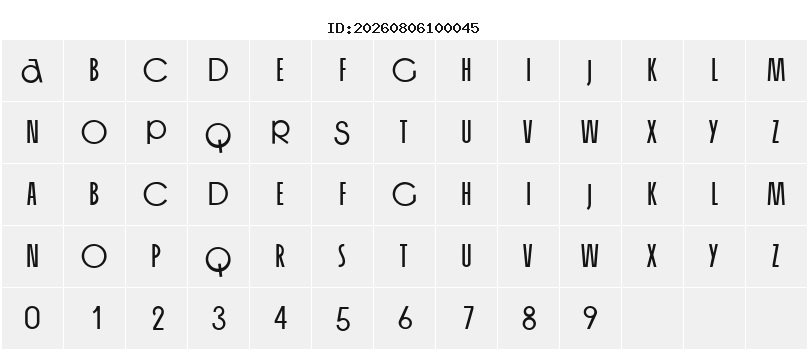
OrganGrinder Preview
• Font Name: OrganGrinder
• Font ID: SoftMaker Software GmbH OrganGrinder-Regular
• Full Font Name: OrganGrinder-Regular
• Version: Version 1.0 28-08-2002
• PostScript Name: OrganGrinder
• Character Count: 188
• Designer: SoftMaker Software GmbH
• Manufacturer: SoftMaker Software GmbH
About OrganGrinder.ttf
OrganGrinder.ttf is a modern, elegant sans-serif font designed for ultimate readability and visual harmony. Perfect for branding, headlines, web design, and print materials.